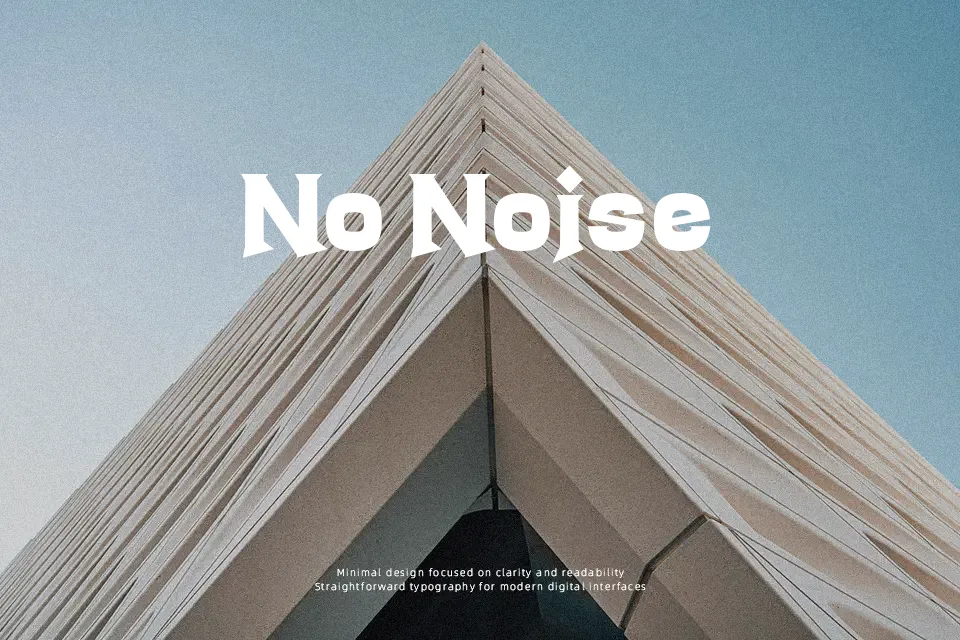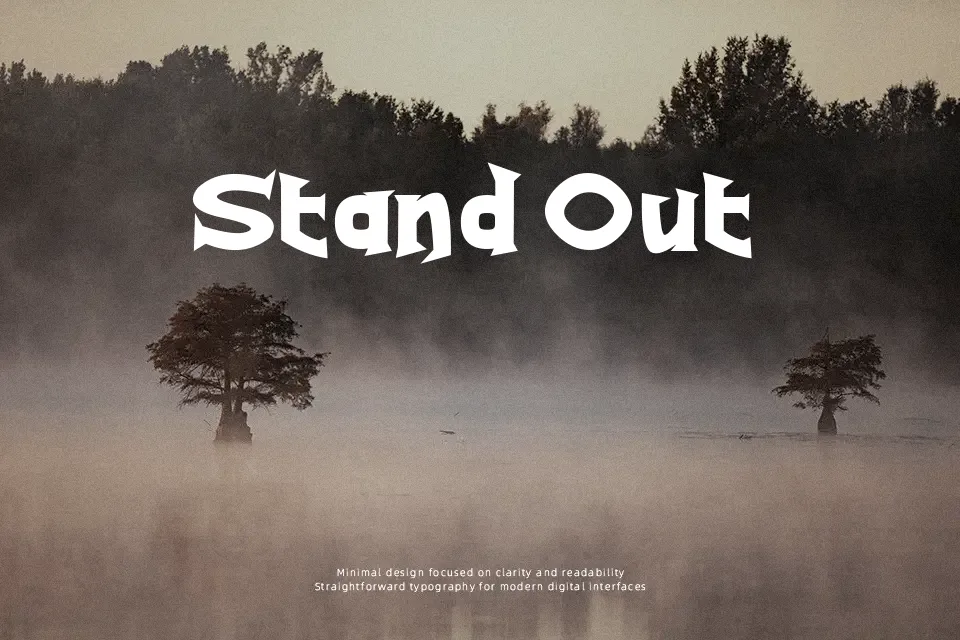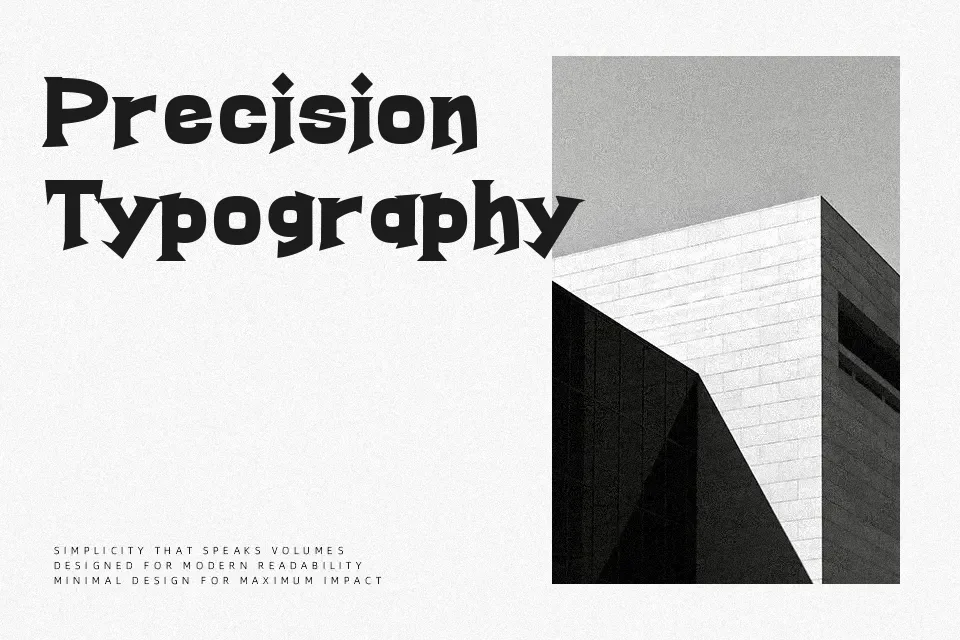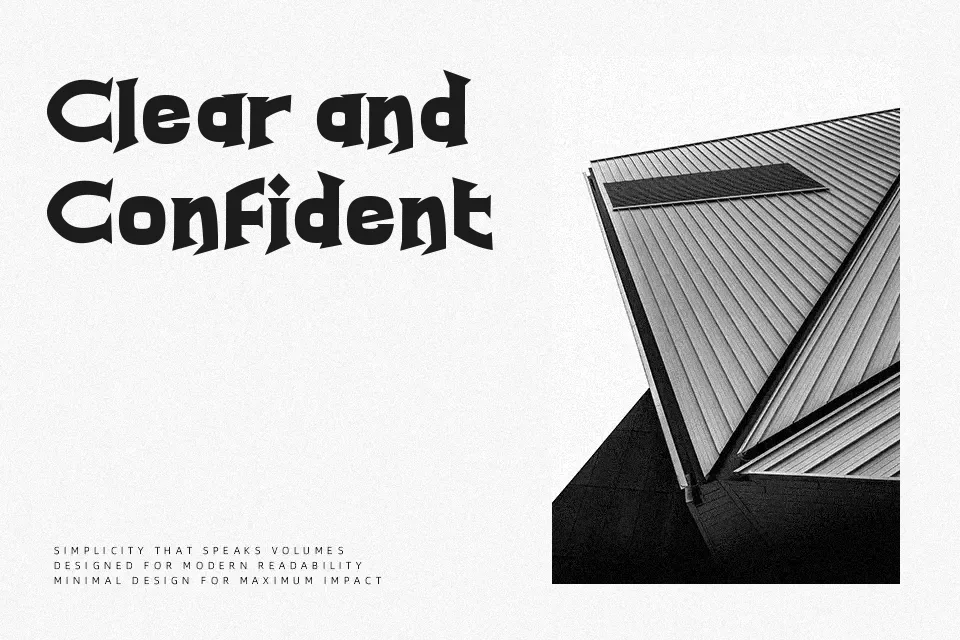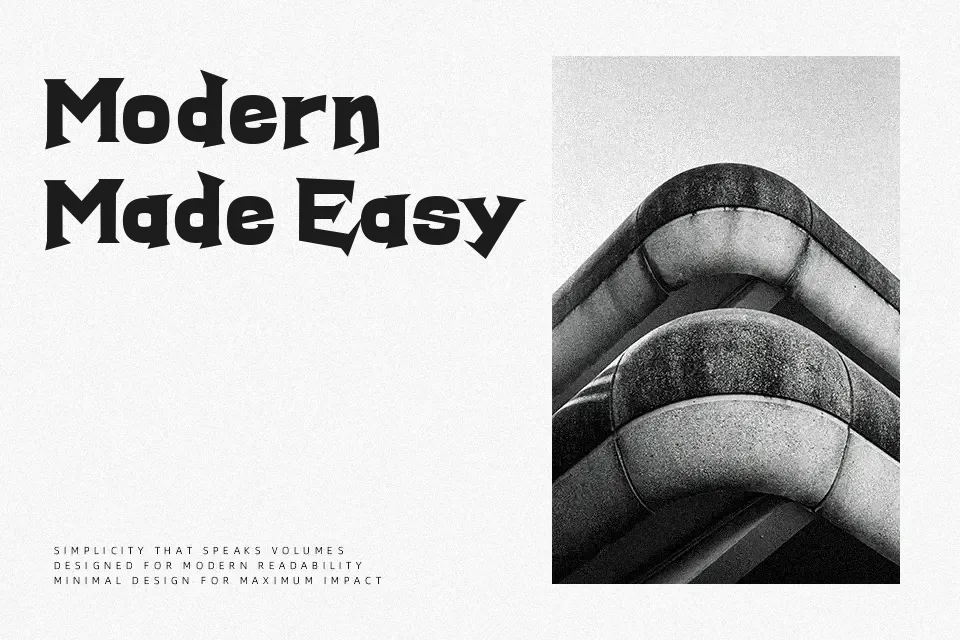
Real Fun Time Font
The visual structure of Real Fun Time Font relies on heavy, irregular strokes and a dynamic, bouncy baseline to create an energetic cartoon aesthetic. The letterforms display playful proportions with slightly condensed widths and tight spacing, giving words a cohesive, blocky appearance. Because of the thick weight and informal geometry, the typeface excels in large display applications where it can command attention. The dense forms reduce comfort during extended reading, making it difficult to parse in long paragraphs or at smaller point sizes. However, for short headlines, the bold strokes improve visibility in posters and vibrant packaging. The overall design remains highly expressive, capturing a lighthearted and approachable tone for imaginative projects.
Best For: children’s book covers, toy packaging design, animated video titles, festival event posters
Not Ideal For: lengthy editorial articles, corporate financial reports, small interface labels